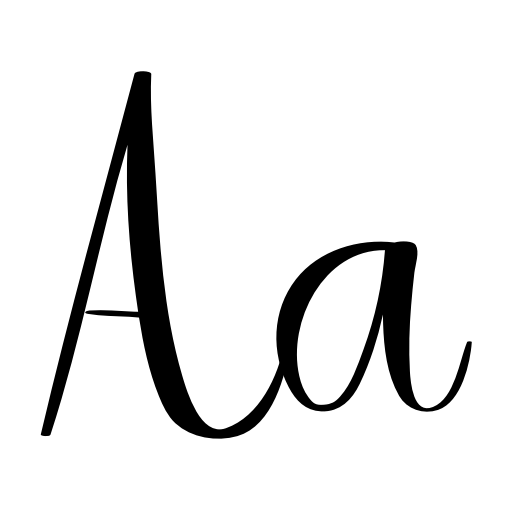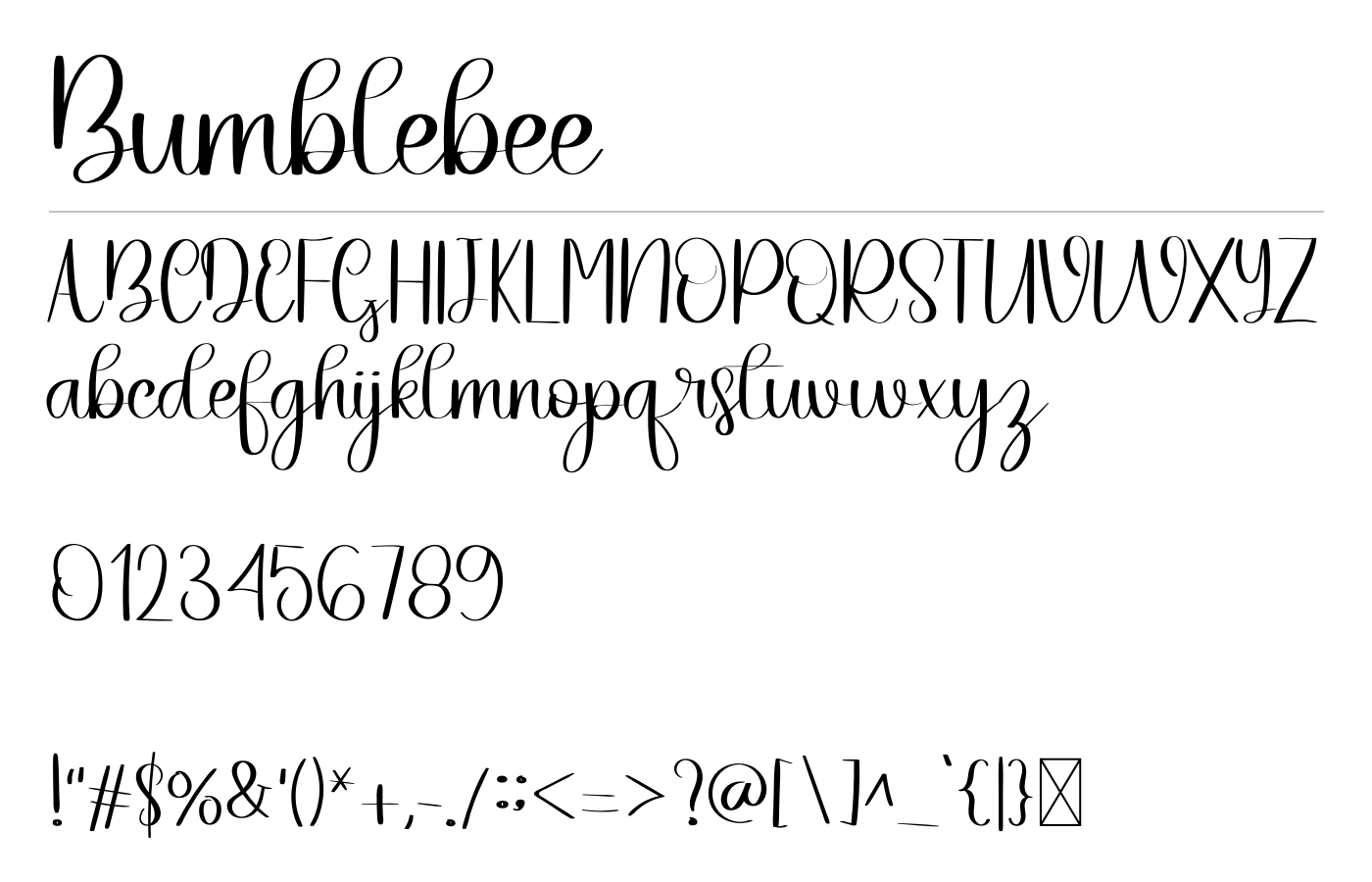
Bumblebee is a playful and elegant script font with a hand-drawn feel, featuring tall, slender letterforms and smooth, flowing curves. Its delicate strokes and whimsical loops give it a casual yet refined personality, making it perfect for creative branding, invitations, and feminine design projects that seek a friendly, stylish touch. The font works well in headlines and decorative uses where a lively and charming impression is desired.
Bumblebee Font